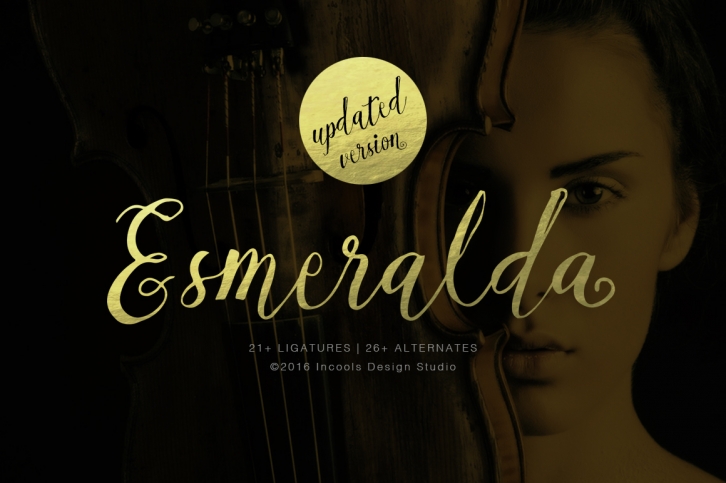
Esmeralda is a beautiful font that was designed by Incools. It's a great choice for designers and creatives who need such a font. It was released on June 15, 2016 and the file size is 14.72 MB. Esmeralda may give a more youthful, expressive and casual look to your project. It is a very beautiful, refined, elegant, and high-quality font.